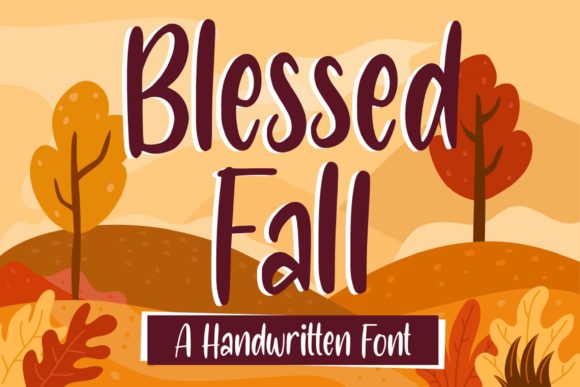
Introducing Blessed Fall Font, a charming handwritten script that will transform your designs into masterpieces. Its playful strokes and adaptable nature make it the ideal choice for capturing the warmth and joy of any occasion.
Indulge in the beauty of this script, perfect for crafting social media posts that dance across the screen, captivating your audience with its whimsy. Design posters that pop with personality, invitations that invite with a sense of delight, and cards that convey your heartfelt messages with a touch of charm.
Blessed Fall Font is not just a font; it's a secret weapon for designers and creatives. Its versatility empowers you to effortlessly create eye-catching business cards that leave a lasting impression, ensuring you stand out from the crowd. Let your imagination soar as you use this enchanting script to craft unique and unforgettable designs that resonate with your audience.